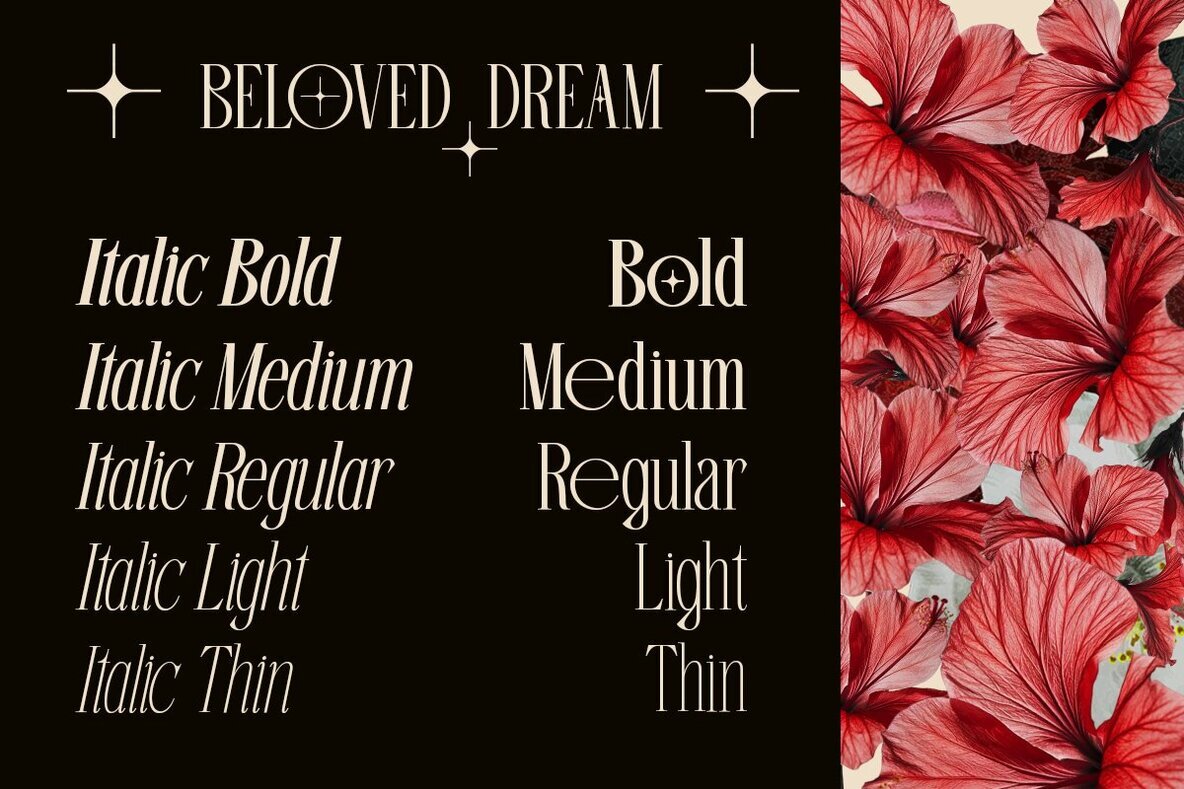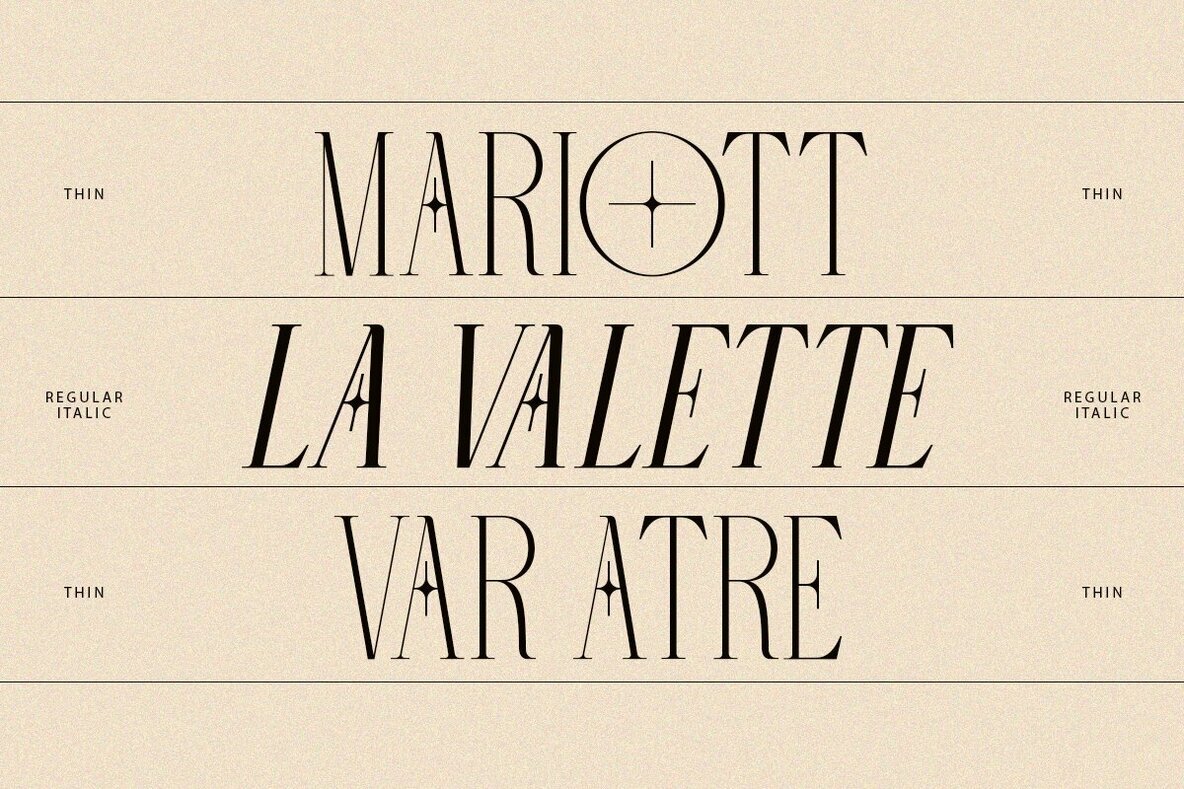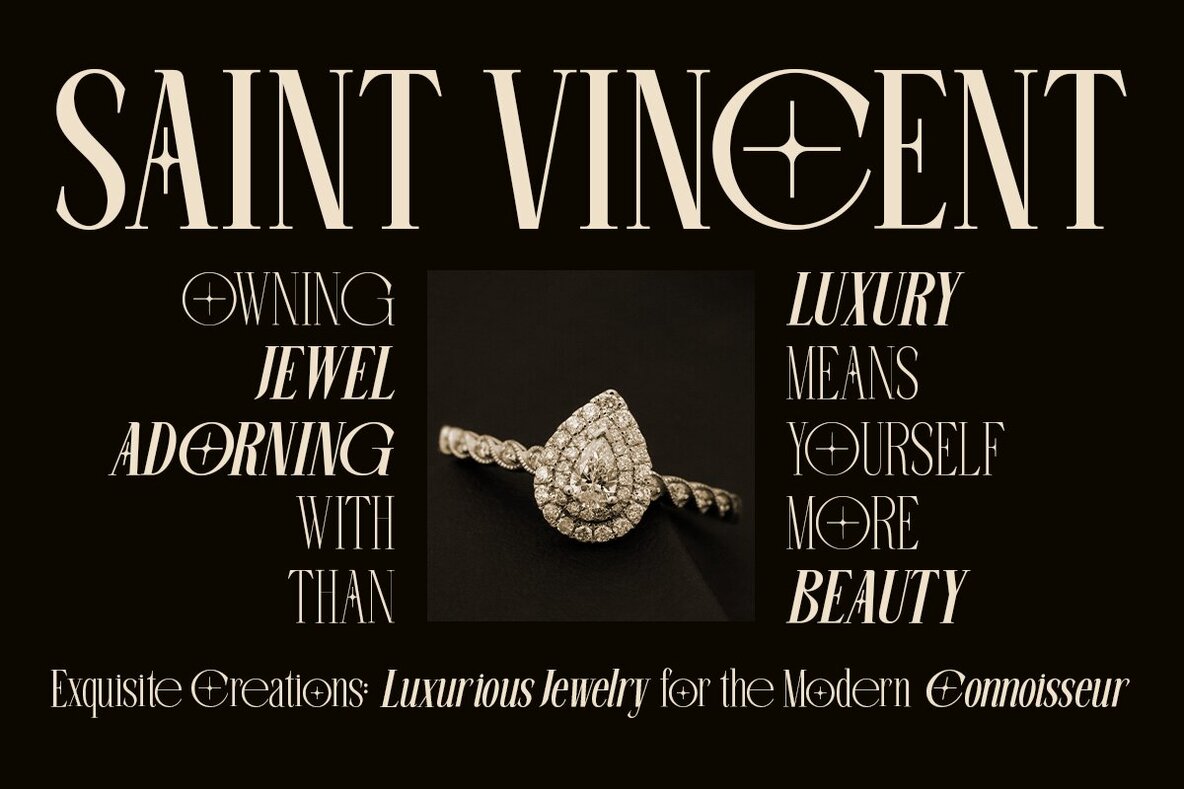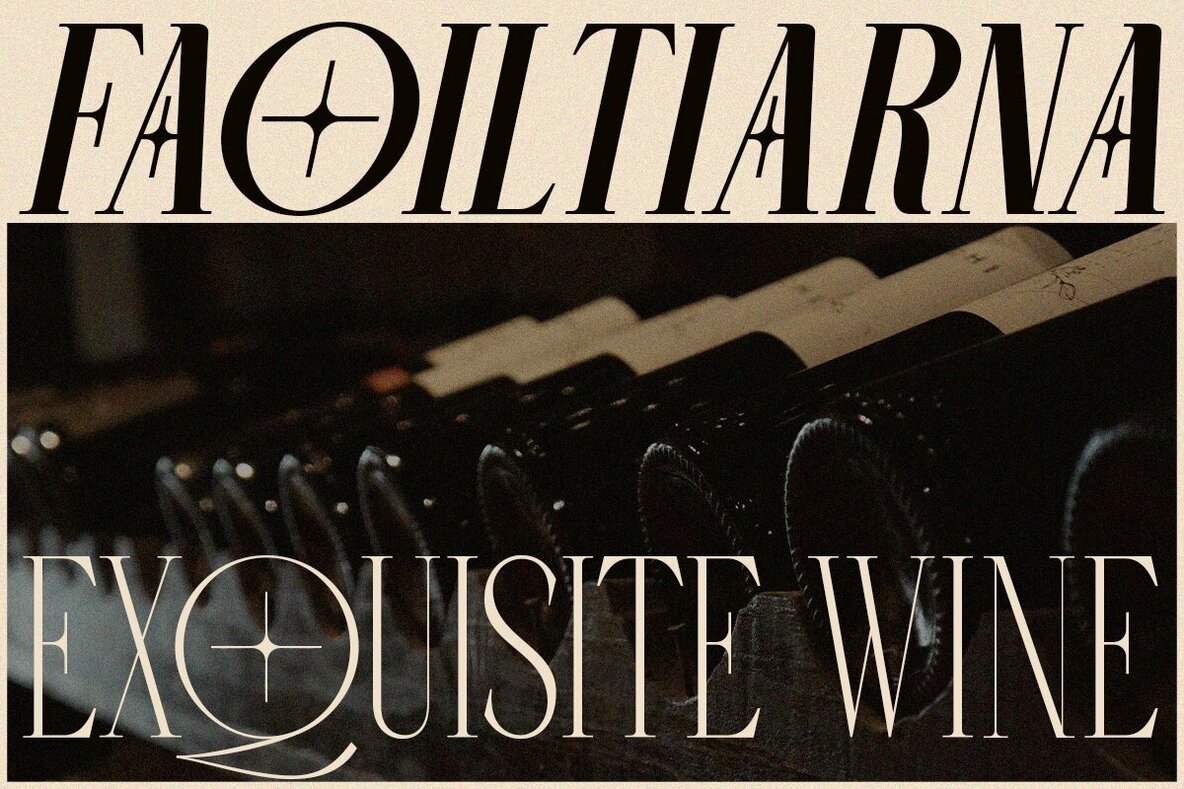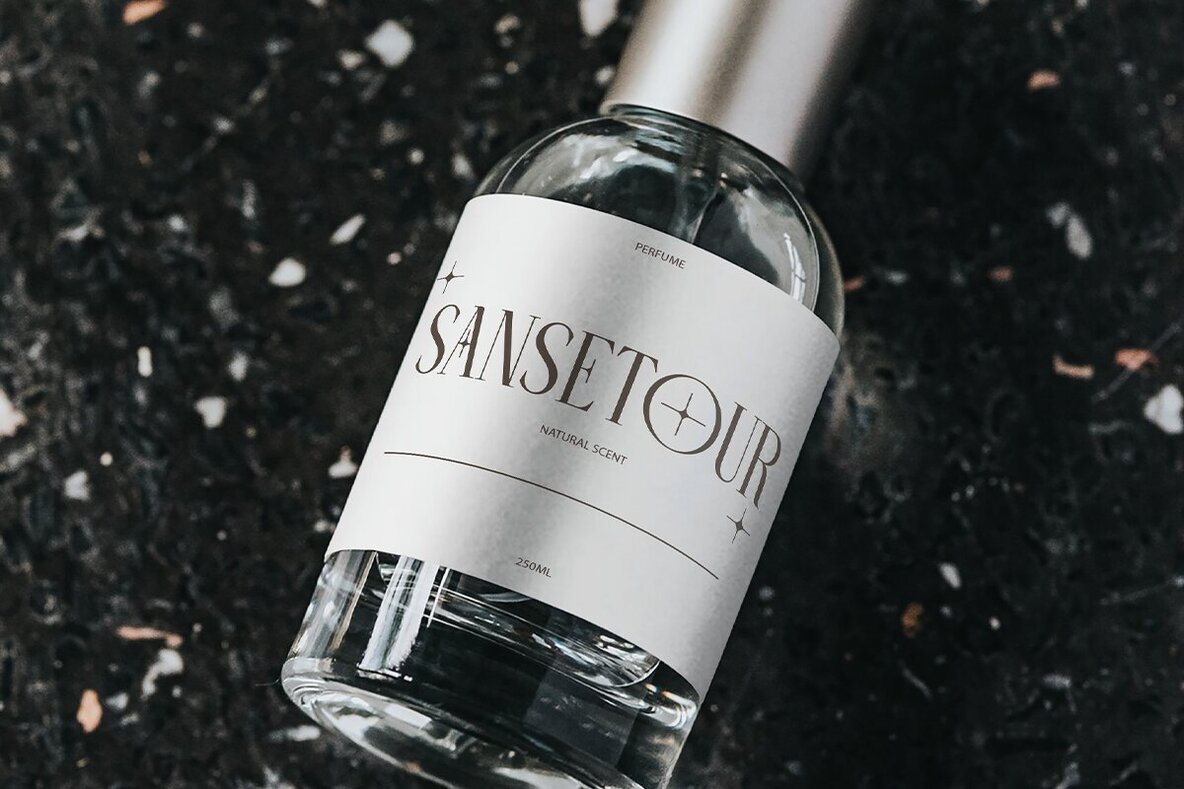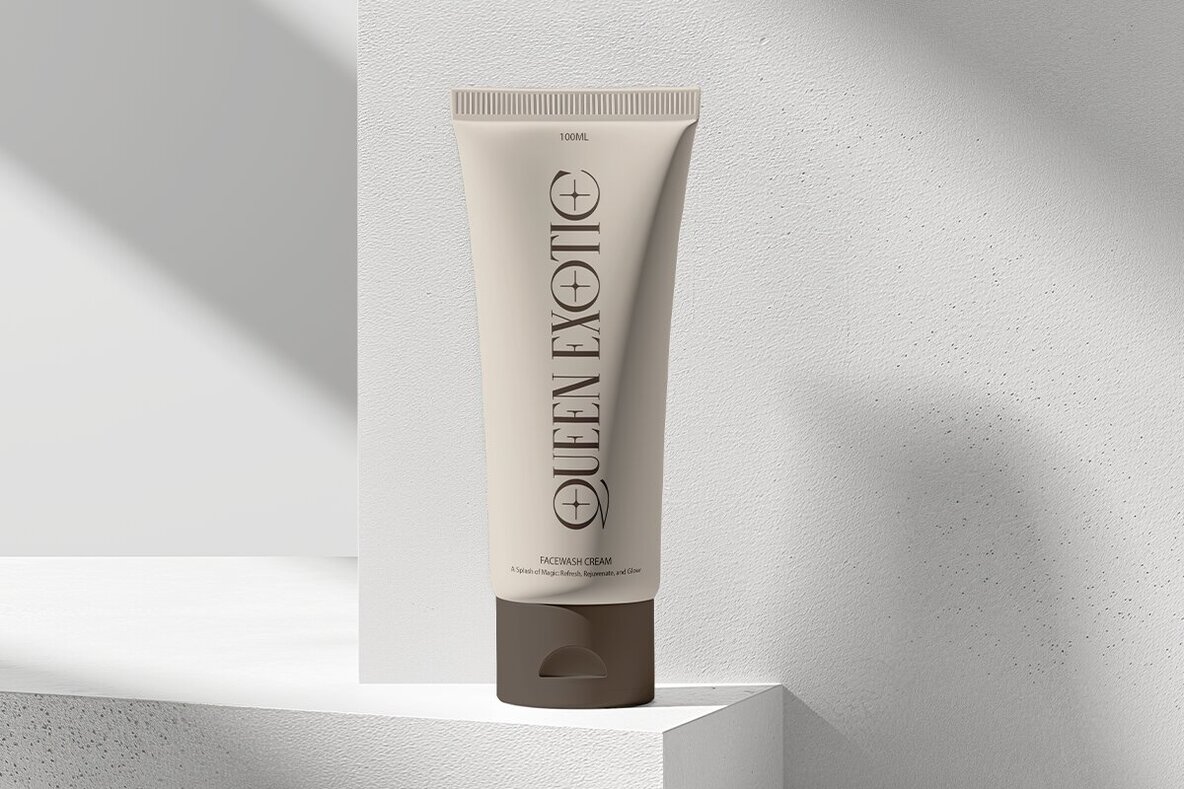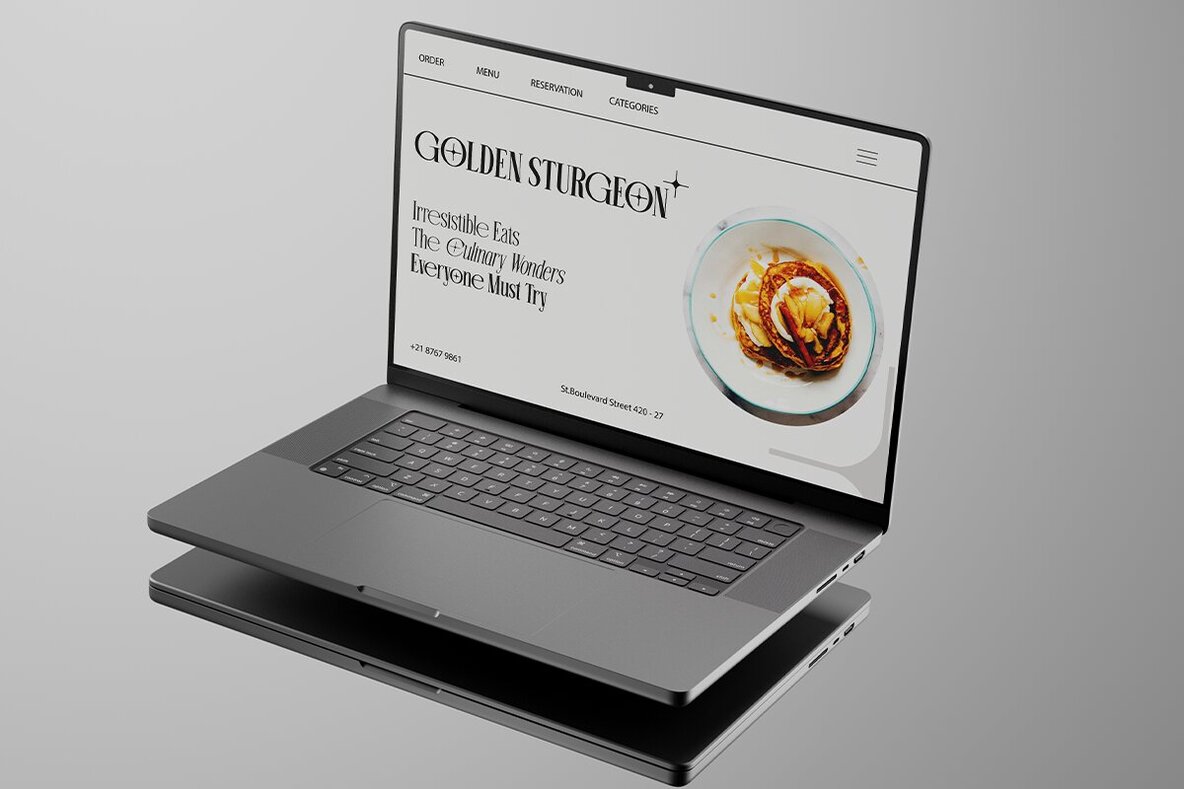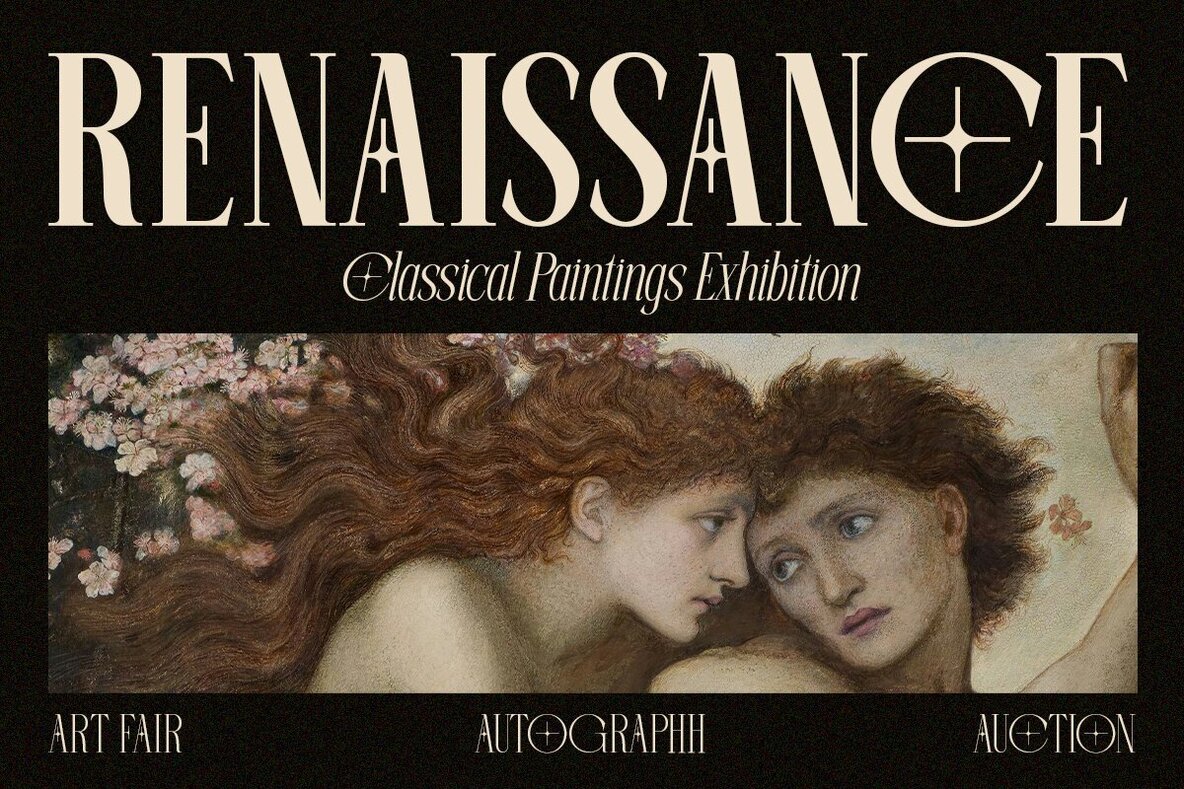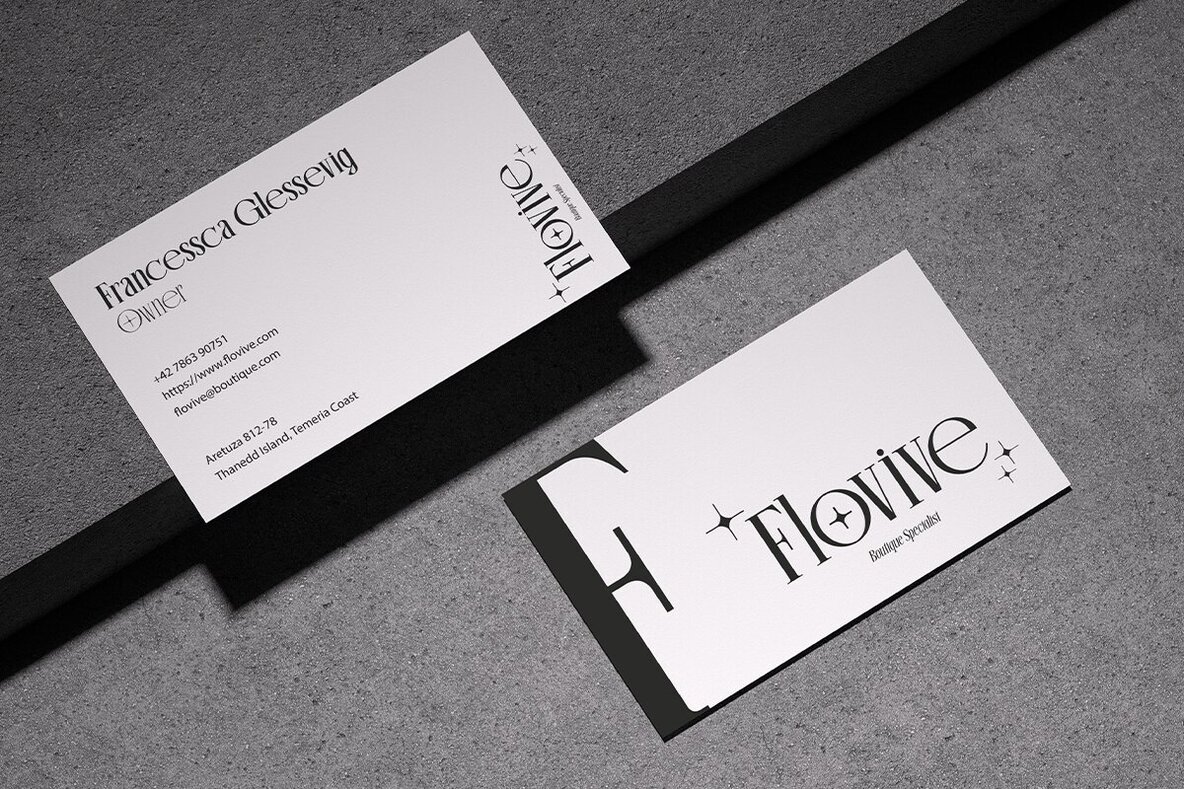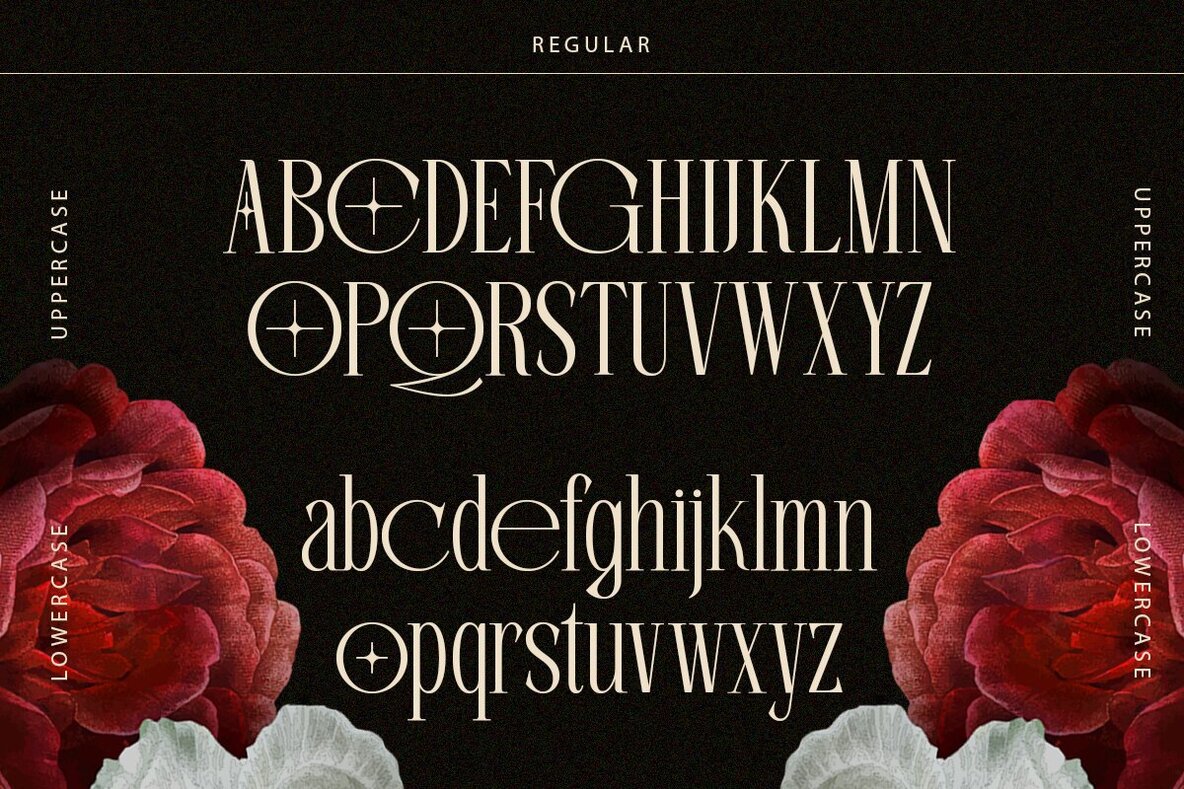
Beloved Dream Font
Beloved Dream is a versatile font family consisting of 10 styles, including five weights each with a matching italic option. This font collection is ideal for a wide array of projects, such as fashion magazines, branding efforts, logos, photography, and more. Its elegant yet modern appeal makes it suitable for weddings, quotes, blog headers, posters, advertisements, and website designs.
Each style within the family—Thin, Light, Regular, Medium, and Bold—offers a range of expressive possibilities. Beloved Dream comes equipped with uppercase and lowercase letters, numbers, and punctuation. Additionally, it supports multiple languages, catering to a global audience. This diverse set enhances the design process, allowing for creative flexibility across various mediums.